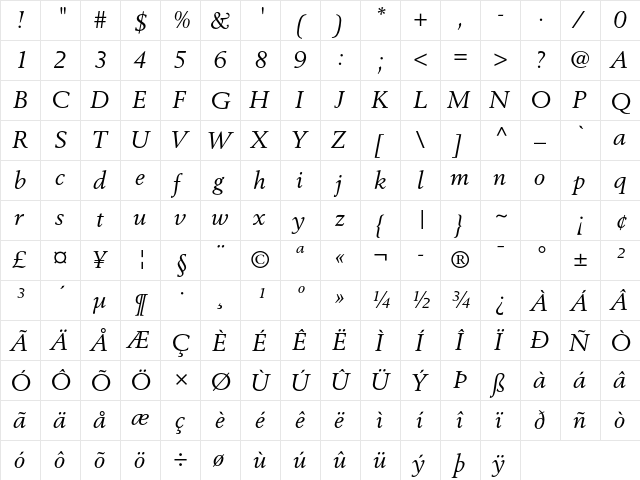
Berling LT Std Italic Font Preview
| Designer | Karl-Erik Forsberg |
Design Context for Berling LT Std Typeface
Berling LT Std is a composed and adaptable typeface that performs quietly and consistently across a wide range of design contexts. Its italic angle brings a sense of urgency and motion to the letterforms. The delicate stroke weight brings airiness and refinement to layouts.
Pro Tip: Try Berling LT Std for annotation and caption copy alongside an upright companion — the contrast in angle creates a dynamic but ordered typographic system.